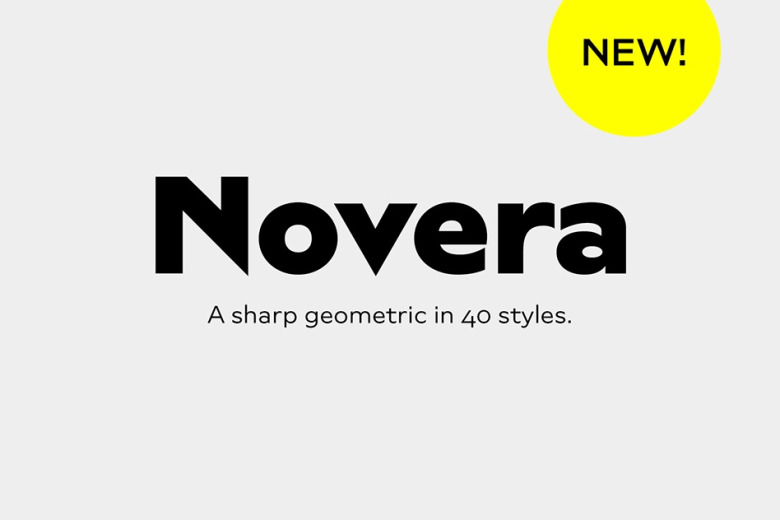
Novera Font
The Novera family is a sharp geometric Sans Serif in ten weights plus matching italics, available in two versions Modern and Classic. It has a contemporary, approachable and multifunctional yet characteristic design, that comes with an extensive glyphs set of 1000+ glyphs per font, meeting all typographic demands.
Novera Sans Font Family